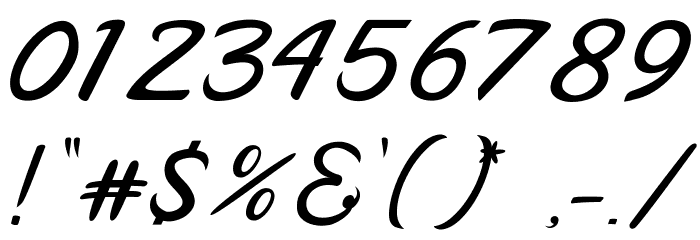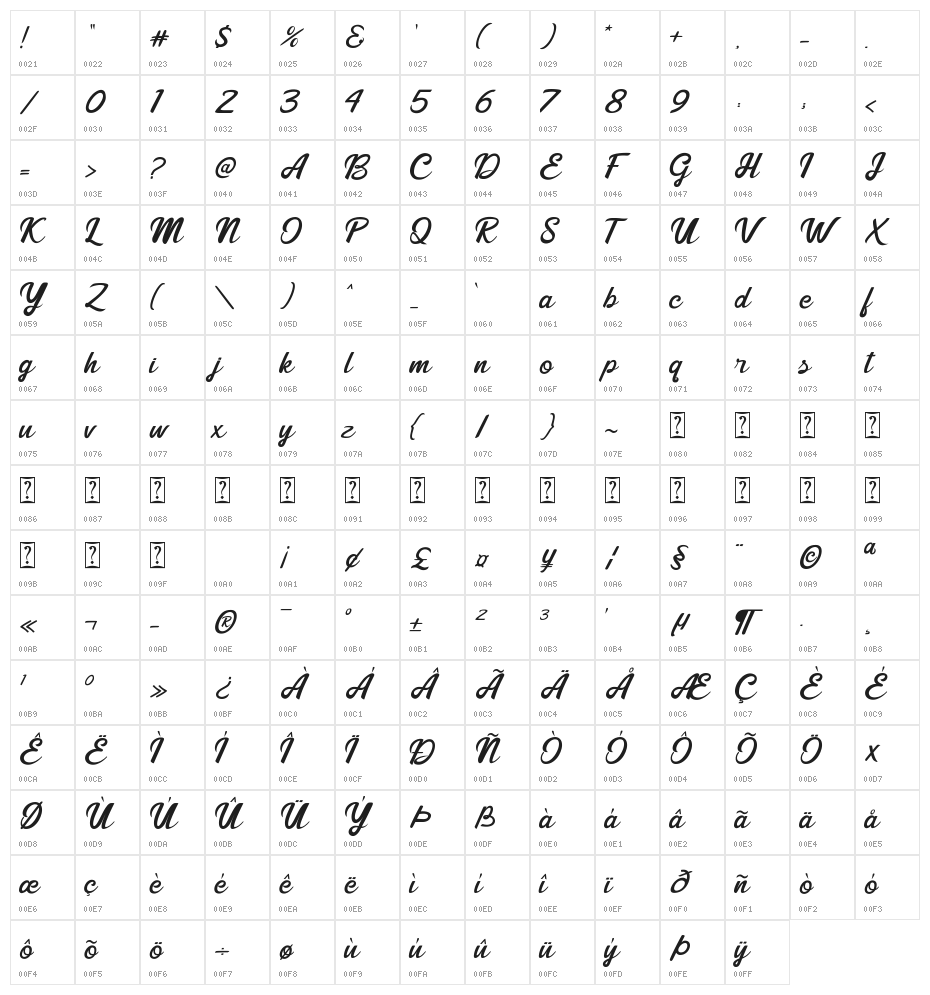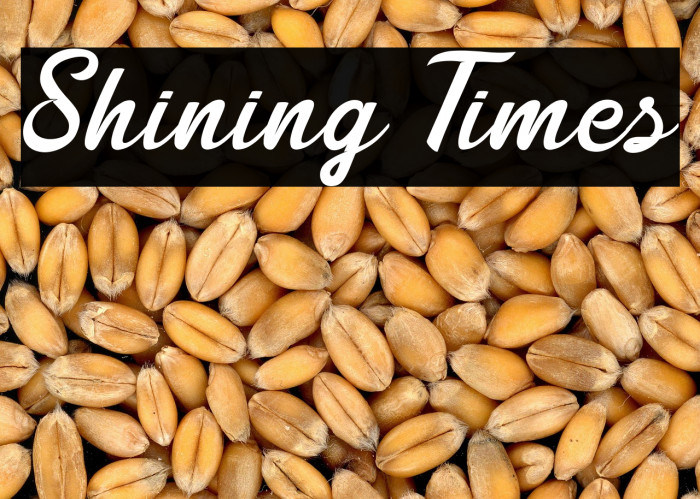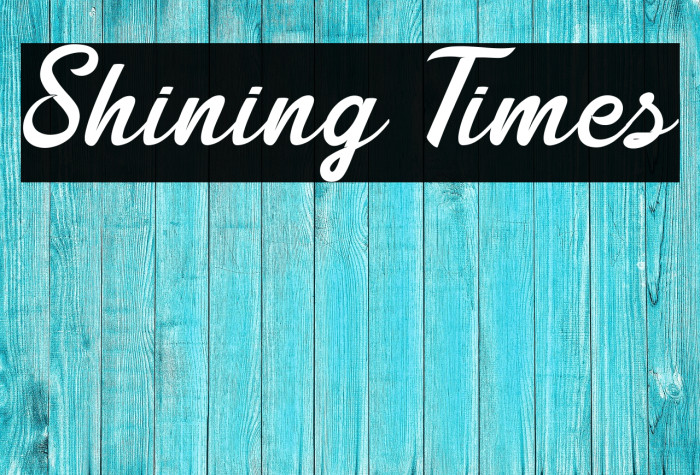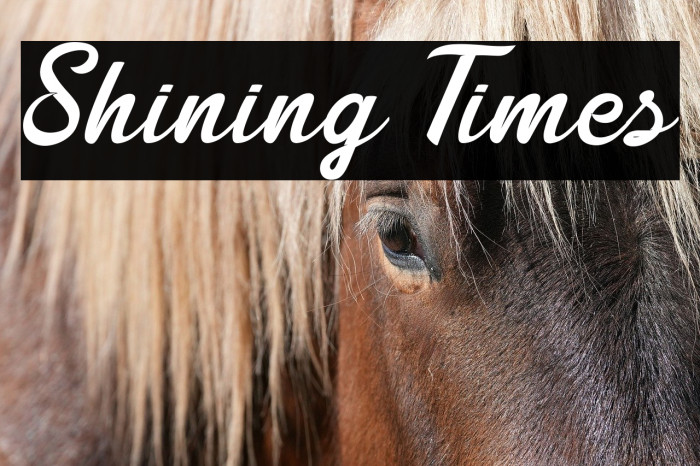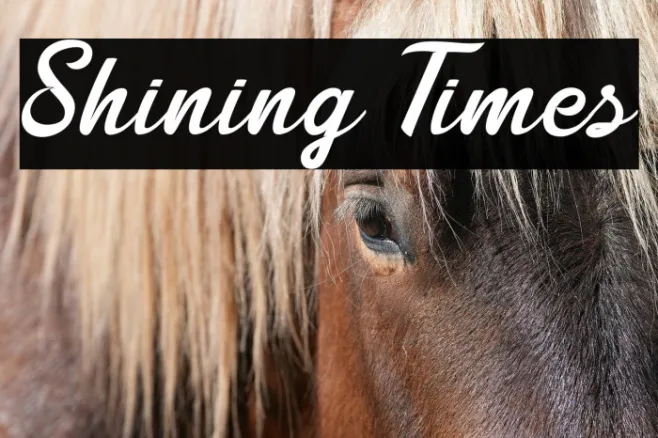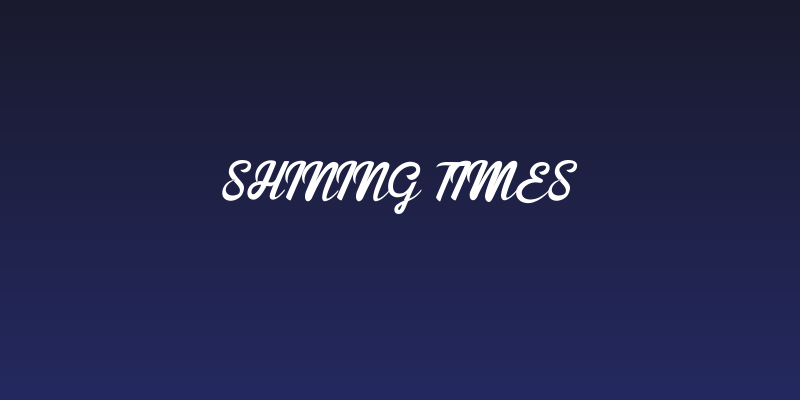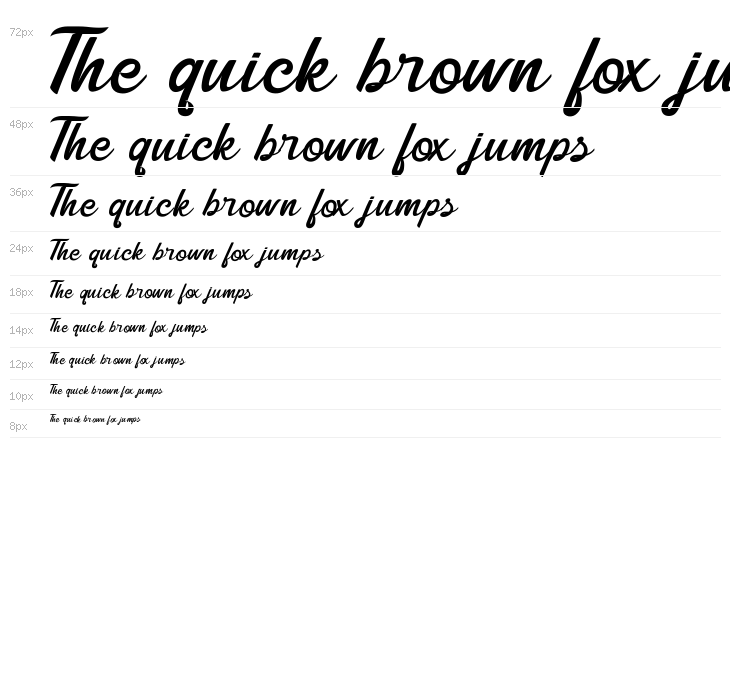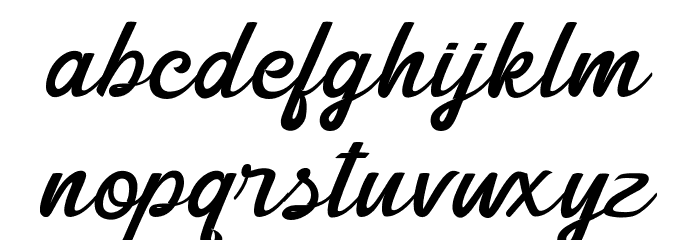
Shining Times Font
This font exudes a classic and elegant script style, characterized by its flowing, cursive letterforms. The uppercase letters are bold and sweeping, with a sense of movement and grace, while the lowercase letters maintain a consistent rhythm and fluidity. The numerals are well-integrated into the script style, offering a harmonious blend with the alphabet. Special characters are designed with the same attention to detail, ensuring a cohesive look across all elements. The overall impression is one of sophistication and timeless beauty, making it ideal for projects that require a touch of elegance.
| Proposed Projects | Ideal for wedding invitations, elegant branding, greeting cards, and formal event materials. |